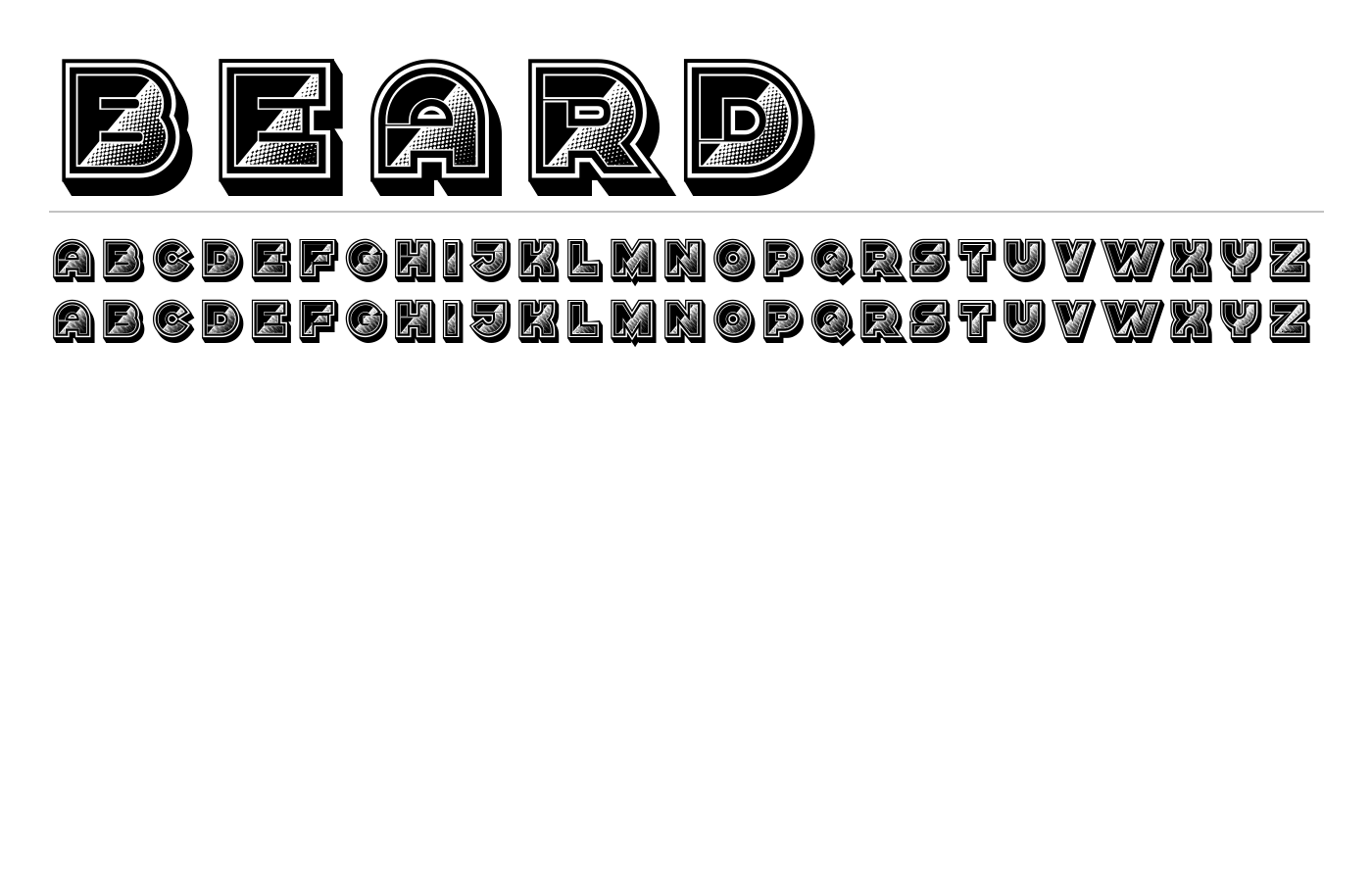
Beard Font is a bold, decorative sans serif typeface with a strong vintage and retro flair, characterized by its layered 3D shading and dotted textures that create dynamic depth. Its wide, blocky letterforms and uppercase-only style make it ideal for attention-grabbing headlines, logos, and posters where a playful, adventurous, and nostalgic mood is desired. This font works best in display settings, adding a unique, energetic personality to packaging, fashion branding, and editorial designs.
Beard Font
About Beard Font